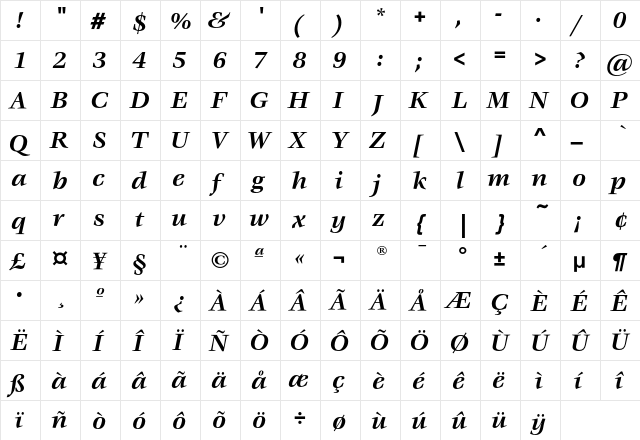
VeljovicEF BoldItalic Font Preview
VeljovicEF BoldItalic
Design Context for VeljovicEF Typeface
VeljovicEF takes a measured approach to typography — its balanced proportions and neutral character make it a reliable workhorse for both digital and print work. Its italic angle brings a sense of urgency and motion to the letterforms. The heavy weight commands attention and anchors typographic hierarchies.
Pro Tip: Use VeljovicEF for emphasis, pull quotes, and subheadings where its slanted energy can add rhythm to the layout.